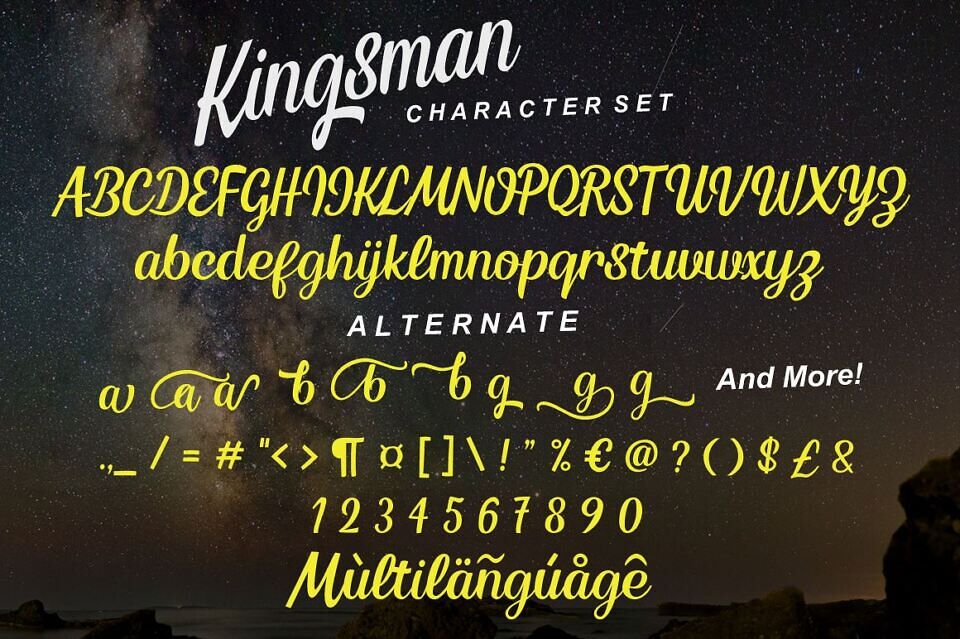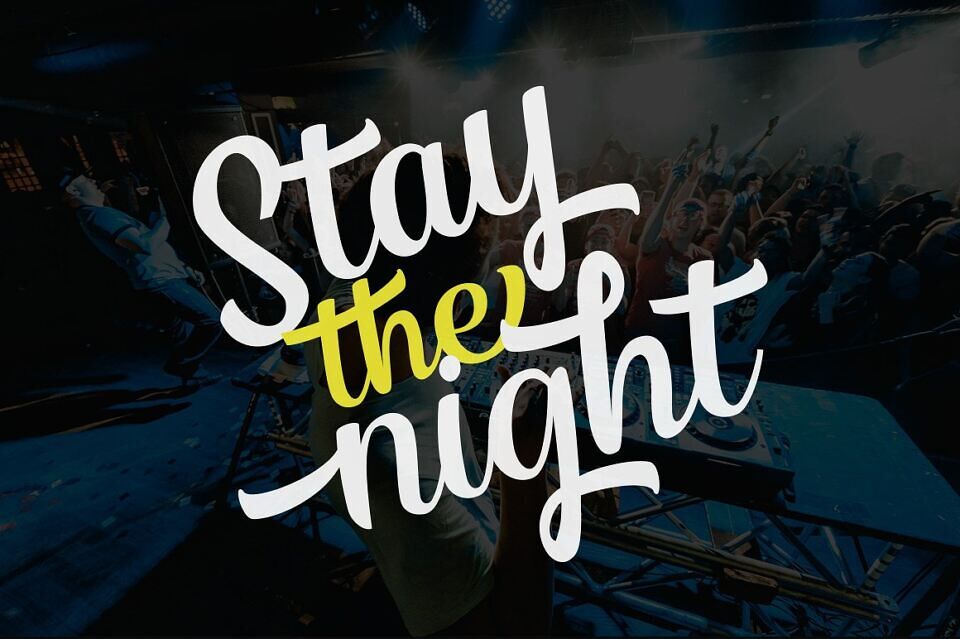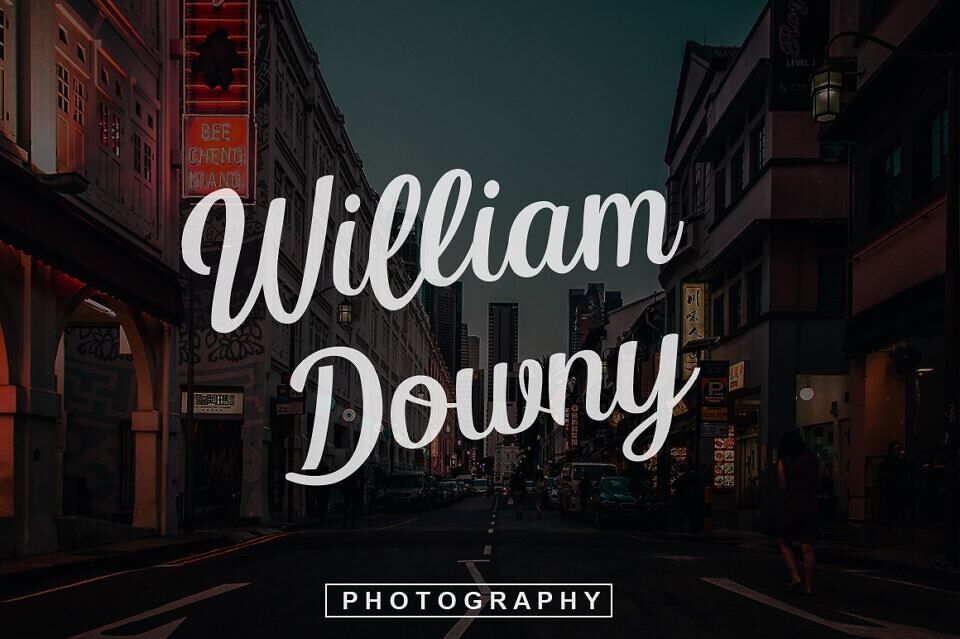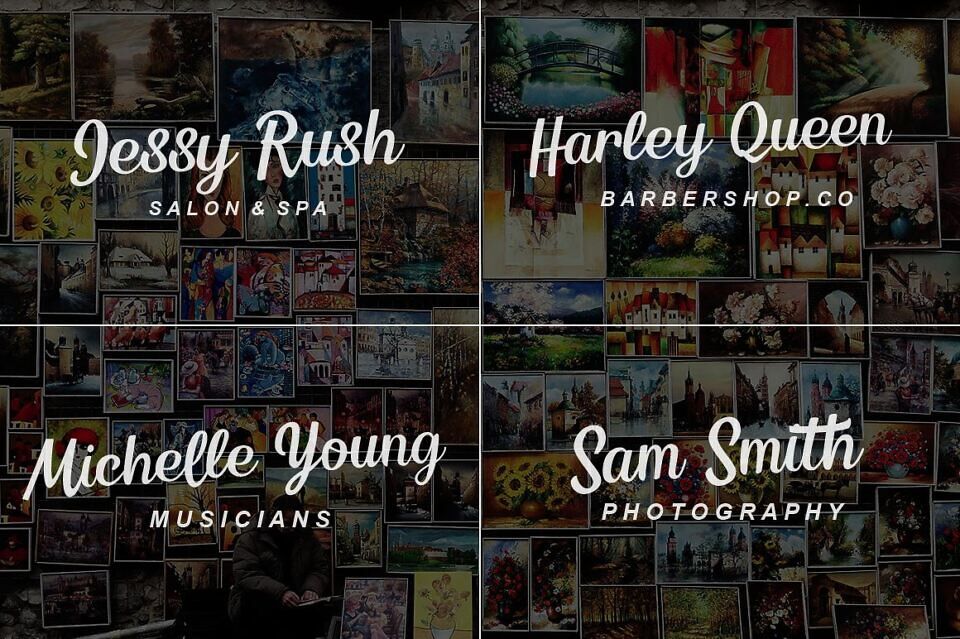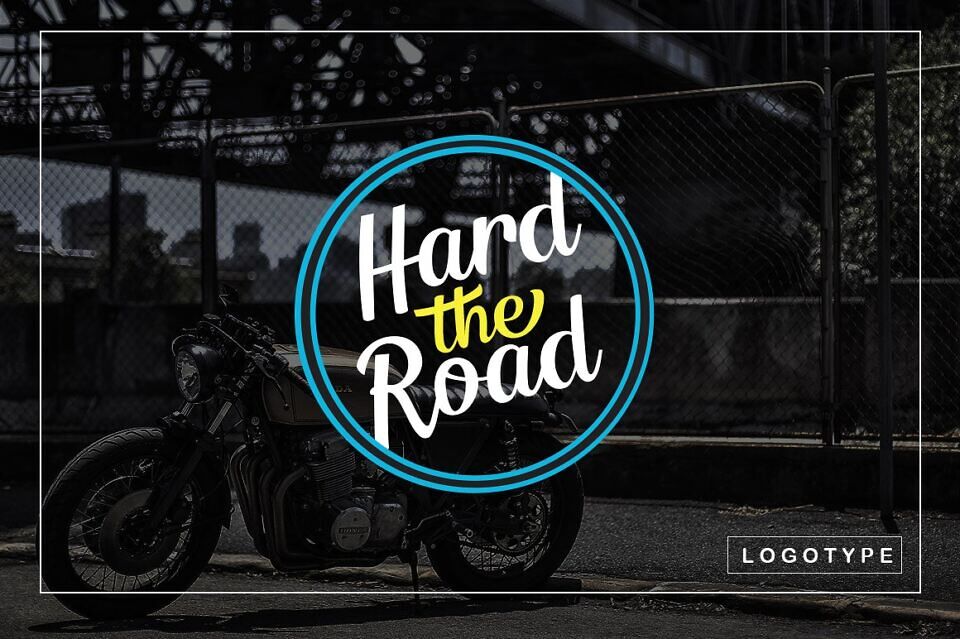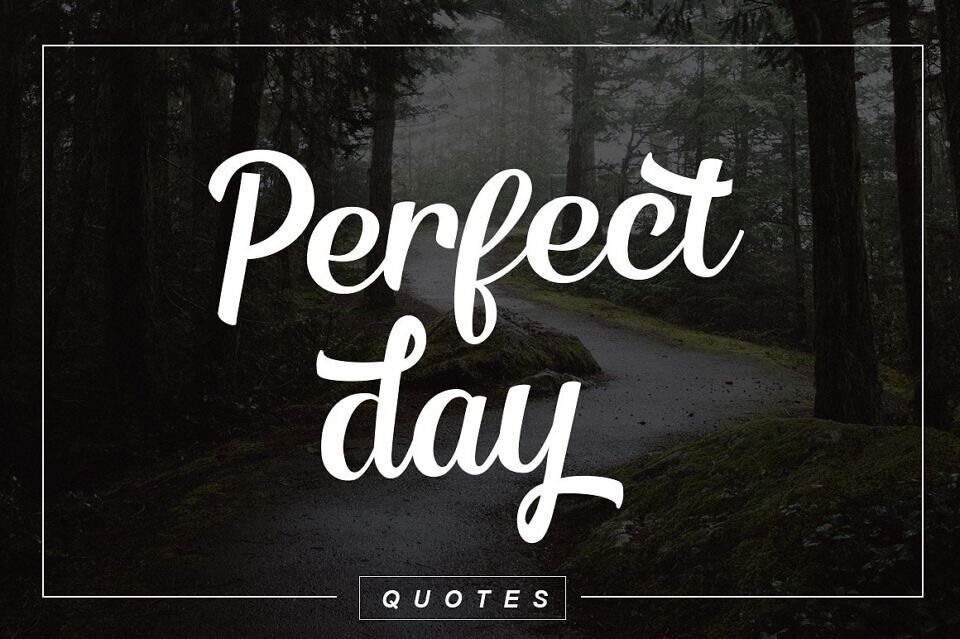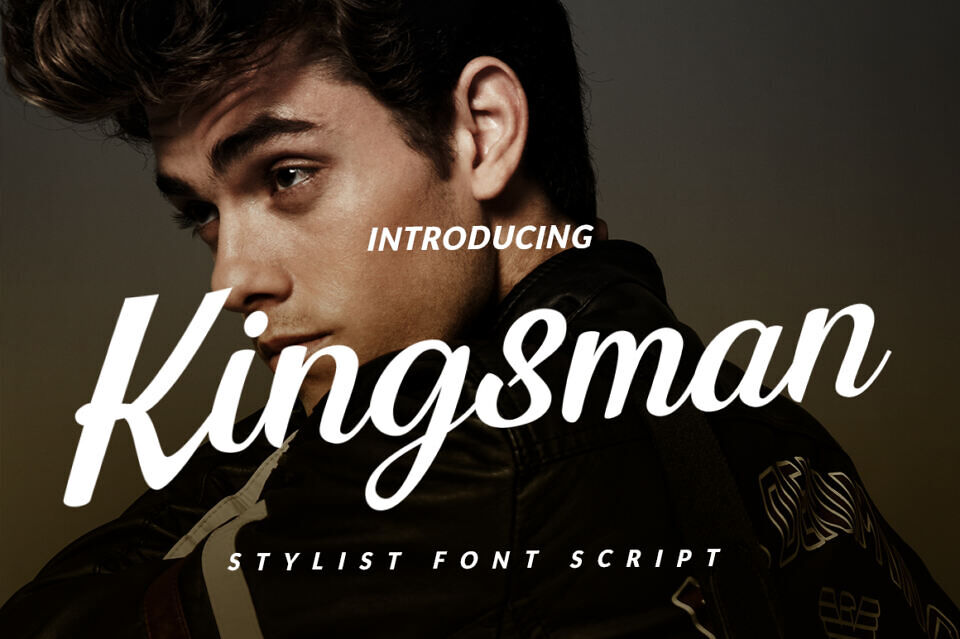
Kingsman Font
Kingsman Script is a Dual Style Font! Comes with two layered font, Extrude Shadow Style, alternate and some ligatures. We keep this font looks elegant, readable, stylish, and catchy.
The fonts are great for product logo, wedding card logo, clothing brand logo, Vintage design and much more.